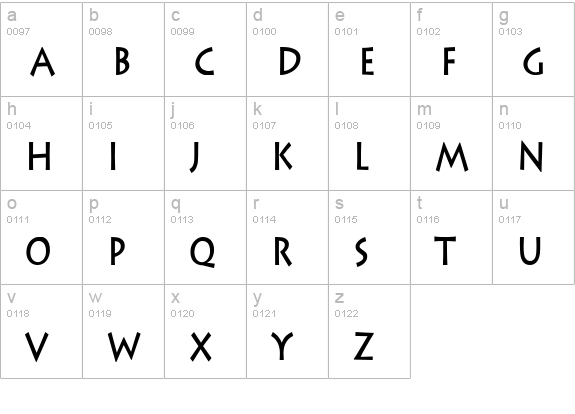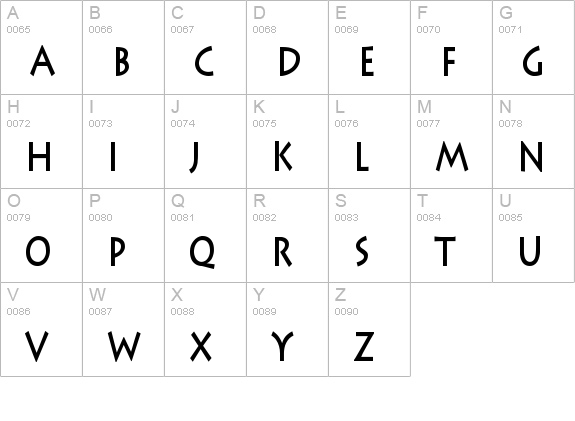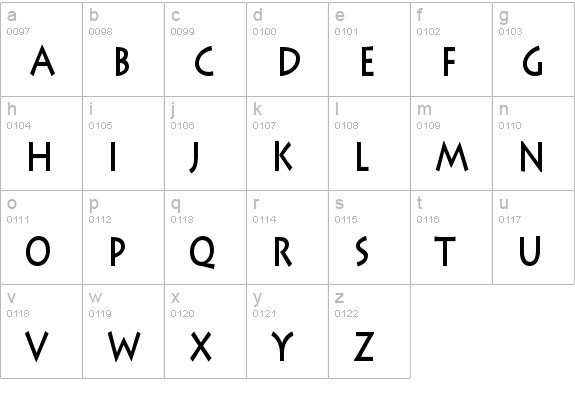
Liste Condensed Bold Font Details
Liste Condensed Bold is a strong, high-contrast, condensed-width variant in the Liste typeface family \xE2\x80\x94 well suited to headlines, attention-grabbing titles, and strong calls-to-action.
Liste Condensed Bold is a modern and versatile typeface that adds a touch of sophistication to any design project. With its bold and condensed form, this font exudes confidence and strength, making it perfect for headlines, titles, and display text. The clean lines and sharp edges of Liste Condensed Bold give it a contemporary and sleek look that will make your designs stand out. Best of all, Liste Condensed Bold is available for free download at FontsMarket.com. This means you can easily access this high-quality font and use it in your projects without any cost. Whether you're working on a branding project, poster design, or website layout, Liste Condensed Bold is a fantastic choice that will elevate your work to the next level. Don't miss out on this opportunity to enhance your designs with the stylish and impactful Liste Condensed Bold font.